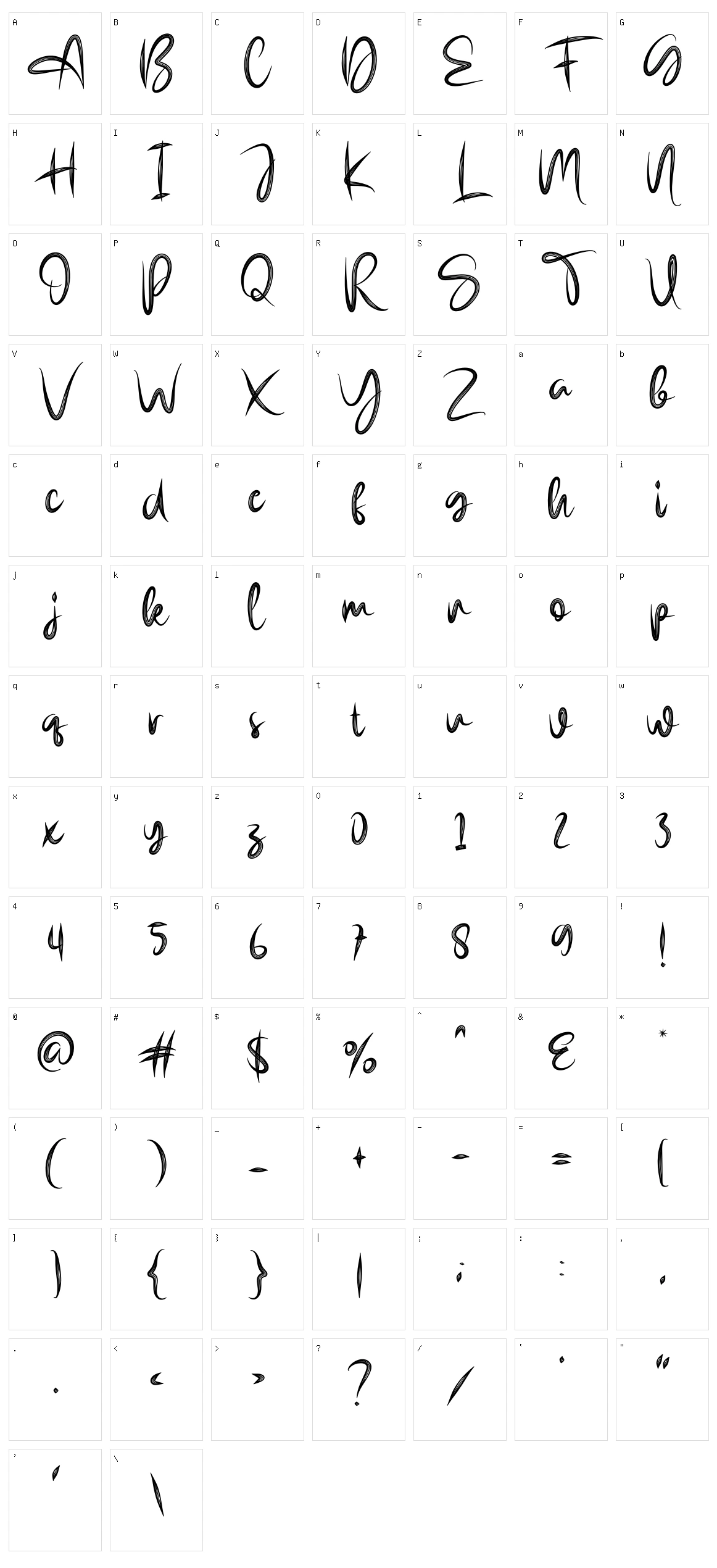
The free font Fatherday is carefully designed by Scratchones, showcasing a thoughtful balance of creativity and usability and falls under the Script font style. When you download the ZIP file, it contains only 500.24 KB of font files, making it lightweight and quick to download. Please review the license details below to understand permitted usage and distribution rights. If license information is not available, we recommend using this font for personal projects only or contacting the author directly for commercial usage permissions.